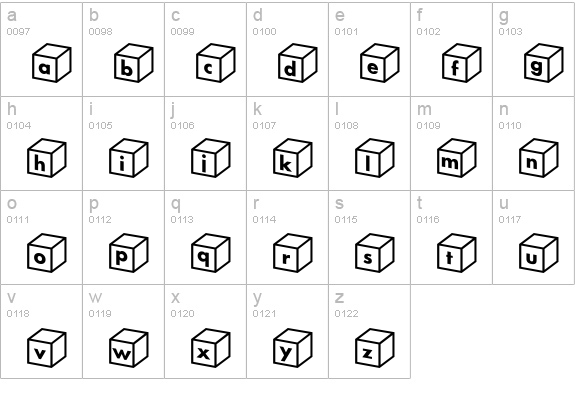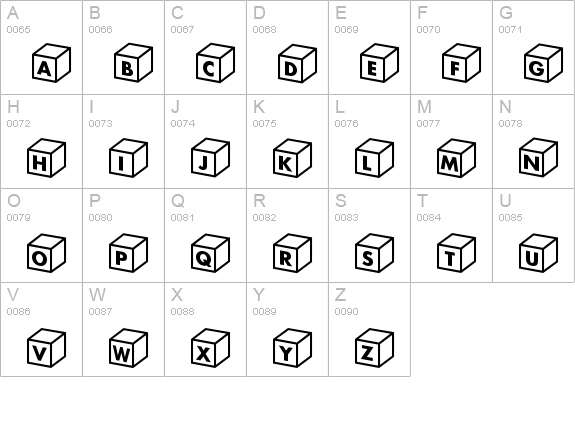
Introducing Box alphabeï¿¿ font, a unique and eye-catching typeface that will bring a modern and artistic touch to your designs. This font features bold, squared-off letterforms with a distinct geometric aesthetic, making it perfect for headlines, logos, posters, and more. The Box alphabeï¿¿ font is versatile and can be used in various design projects to make a strong visual impact. Best of all, this font is available for free download at FontsMarket.com. Simply visit the website to get your hands on this stylish and innovative typeface. Don't miss out on the opportunity to enhance your designs with the Box alphabeï¿¿ font - download it now and let your creativity shine!